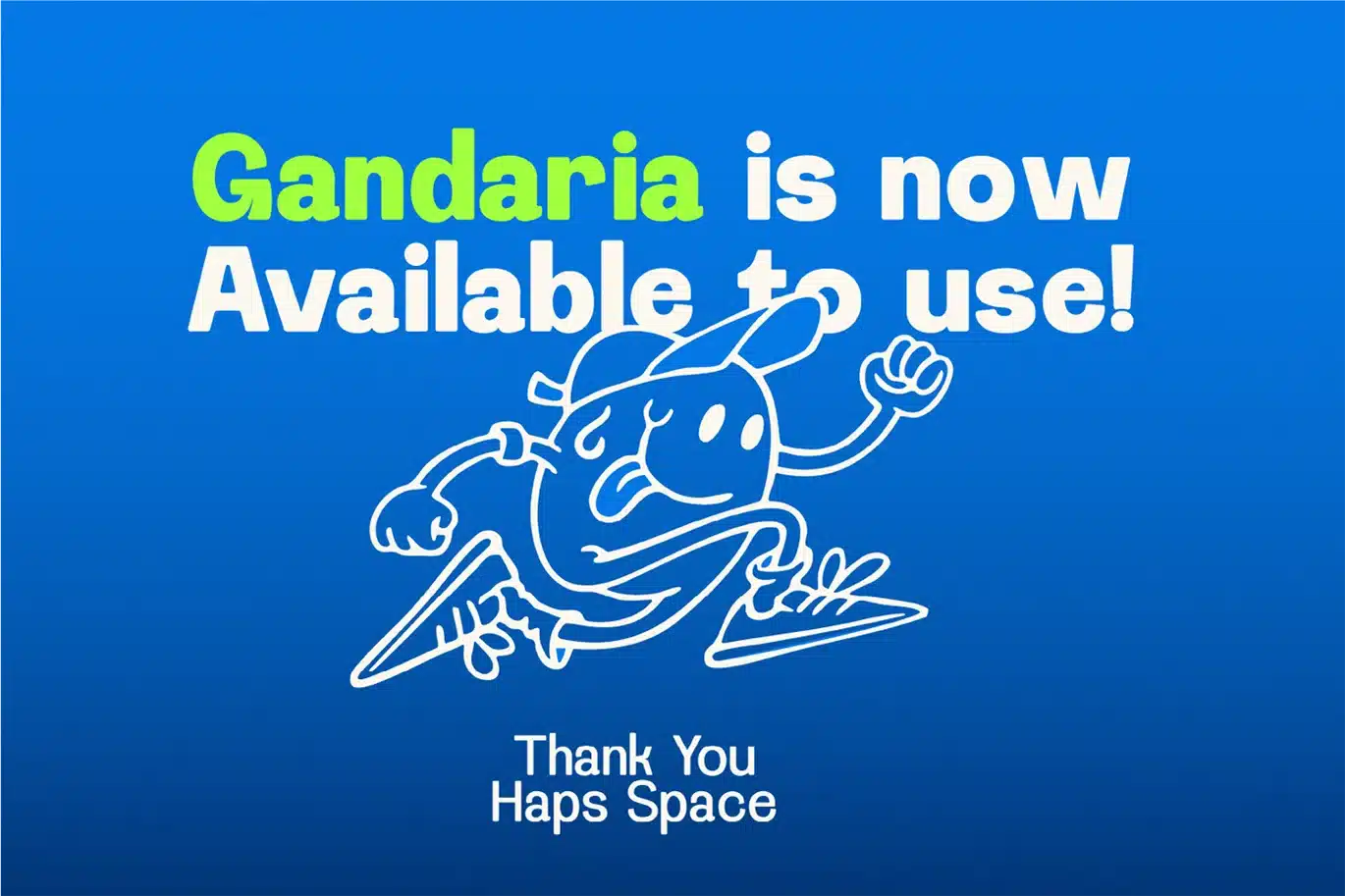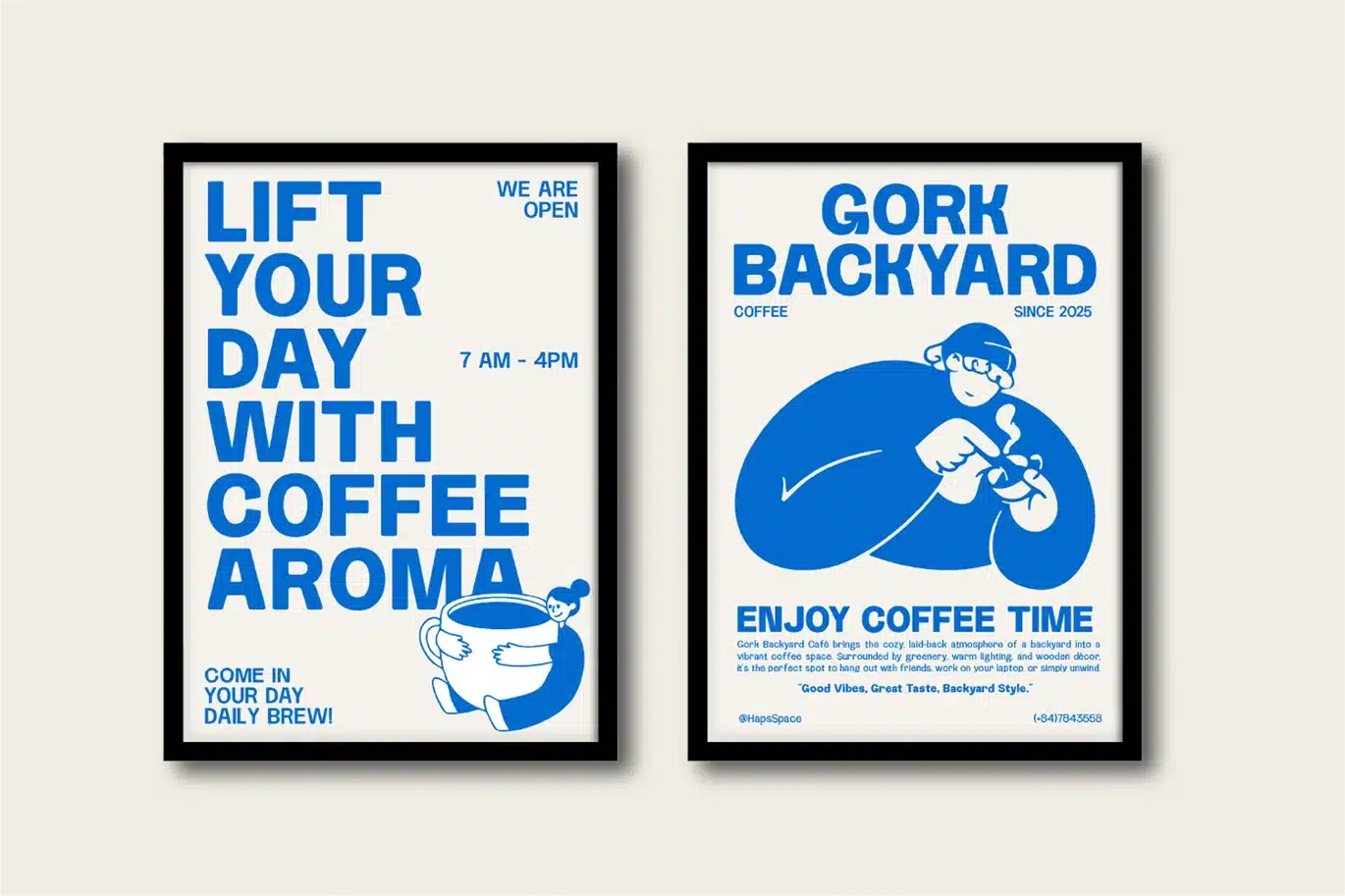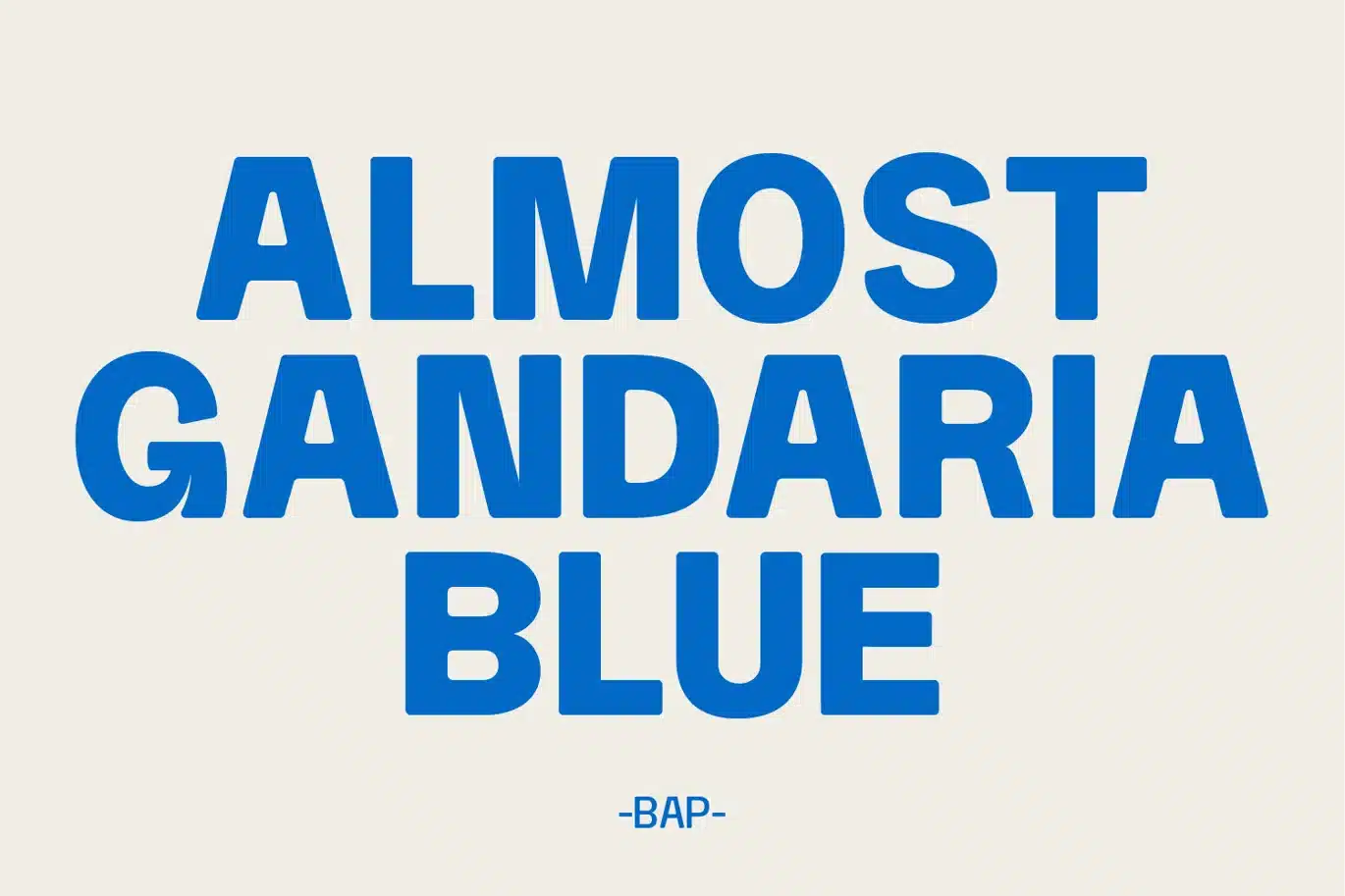
Gandaria Display Typeface Font
Gandaria is a bold and modern rounded display typeface designed to bring a friendly yet strong character to your projects. With its smooth curves, clean geometry, and balanced proportions, this font is perfect for branding, headlines, posters, product packaging, logos, and digital content.
This typeface comes with standard glyphs, numerals, punctuation, and multilingual support, ensuring versatility across various design needs. It also includes variable font support, giving you flexibility in weight and style adjustments for both print and digital applications.
Whether you’re aiming for a playful, approachable look or a professional, contemporary feel, HS Gandaria adapts seamlessly, making it an excellent choice for creative designers, agencies, and businesses.